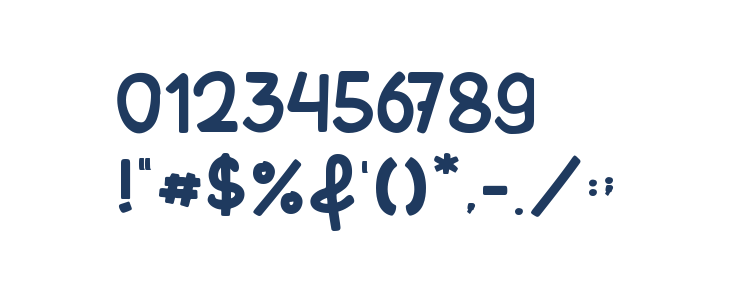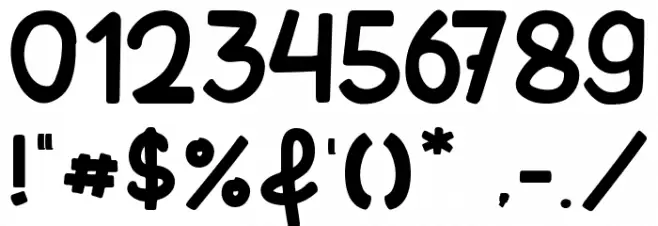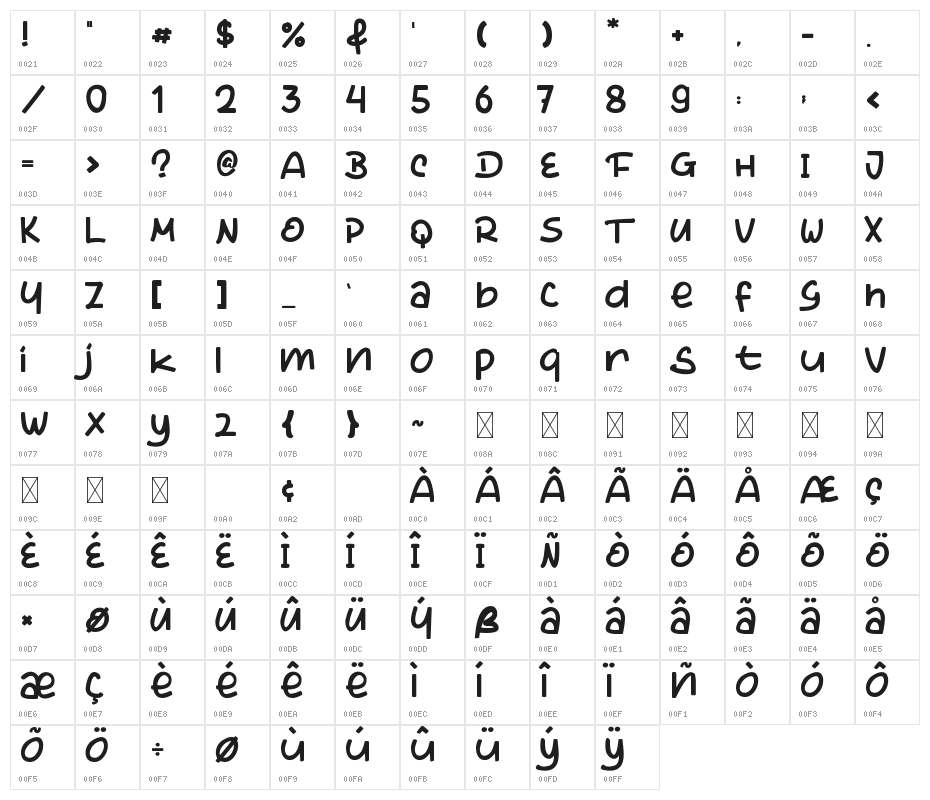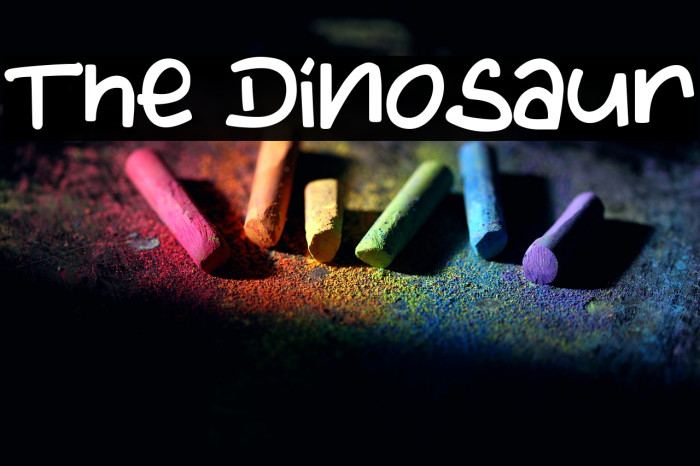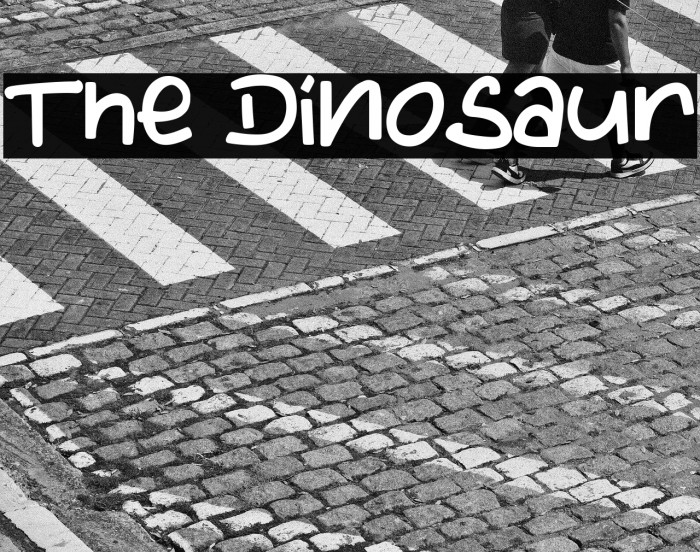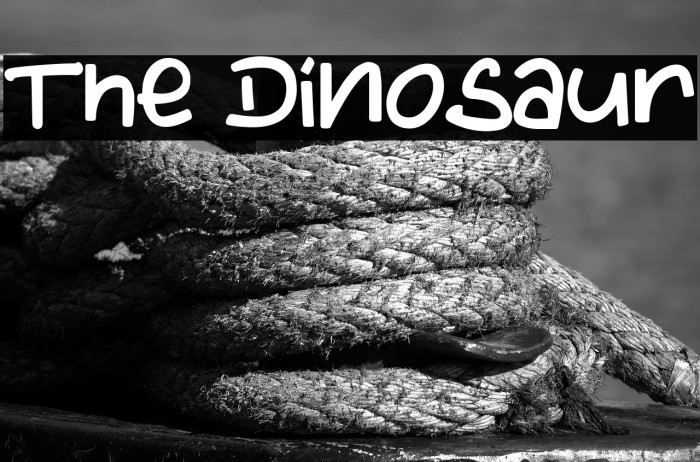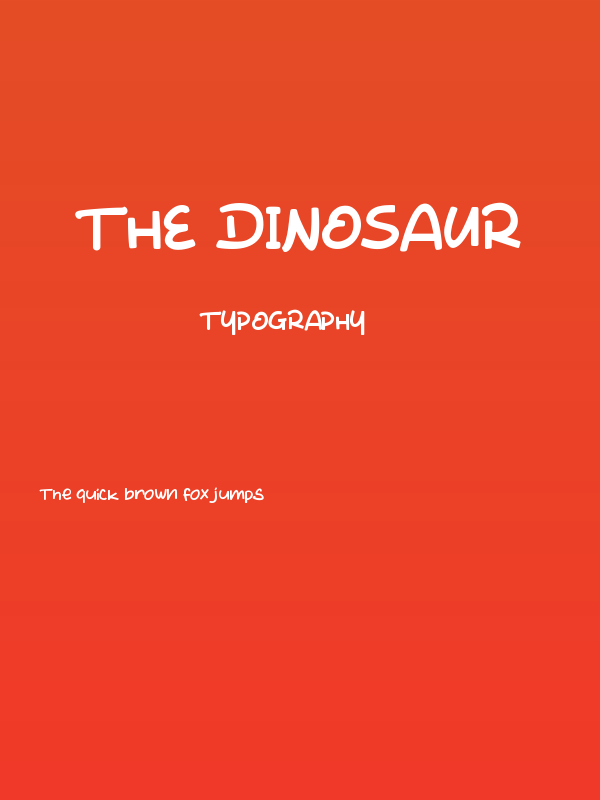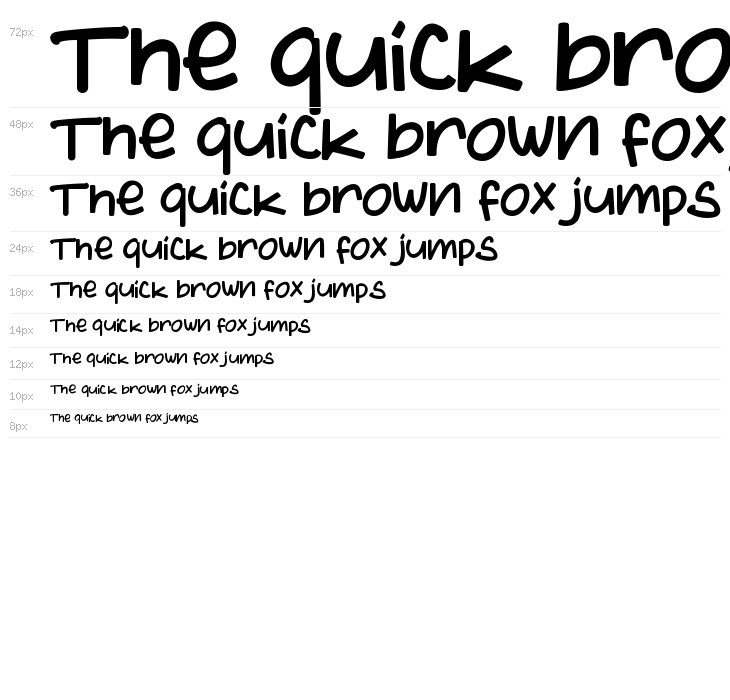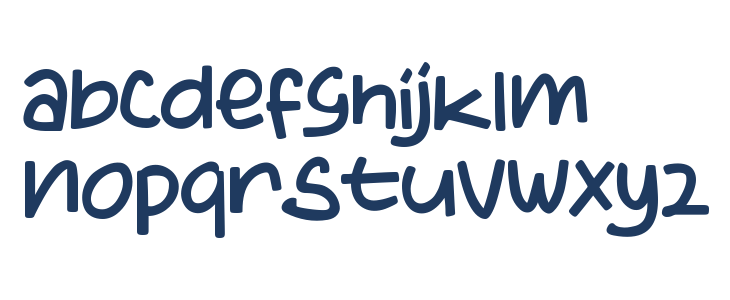
The Dinosaur Font
The Dinosaur Description
This playful and whimsical font features rounded, bold characters with a hand-drawn appearance. The letters are slightly irregular, giving a casual and friendly vibe. The uppercase and lowercase letters maintain a consistent style, with smooth curves and a slight tilt that adds to the informal feel. The numbers are bold and easily readable, matching the overall style of the alphabet. Special characters are included, maintaining the same playful aesthetic. This font is perfect for projects that require a fun and approachable look.
| Proposed Projects | Ideal for children's books, playful branding, casual invitations, and creative posters. |